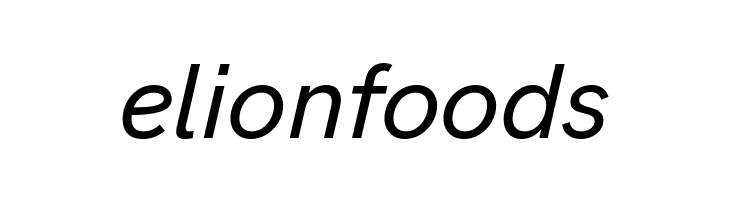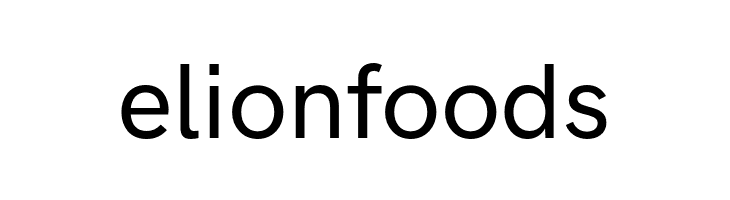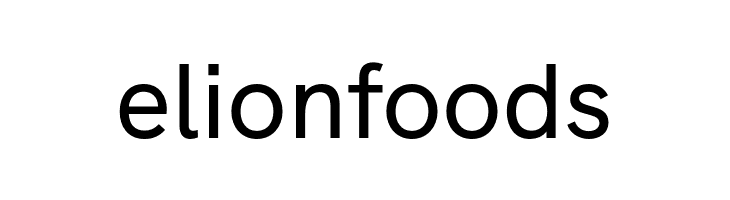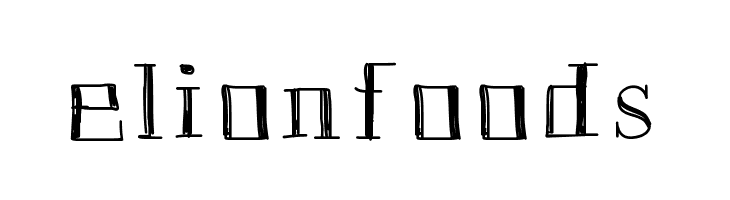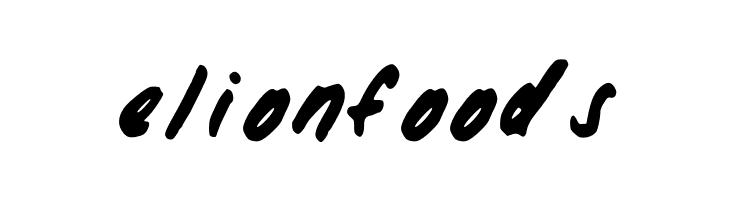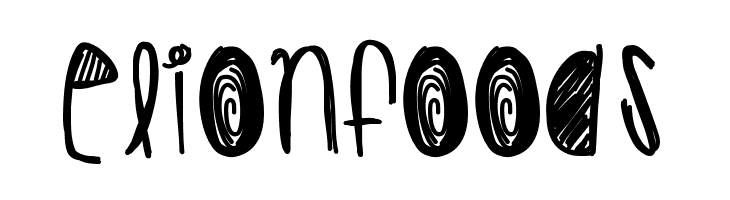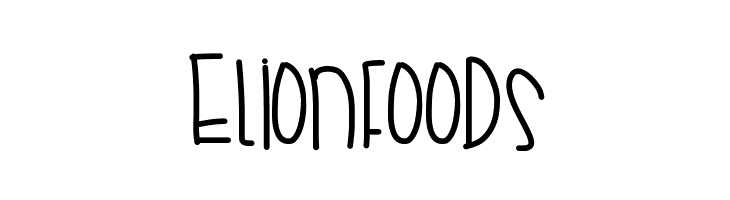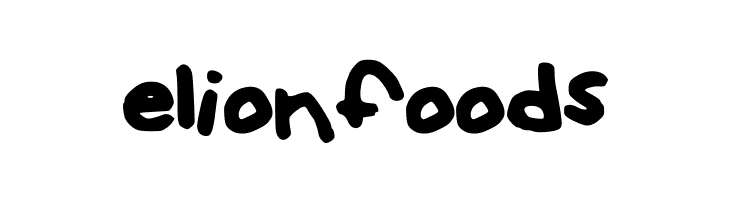
A playful, hand-drawn font with bold, rounded strokes and a casual vibe.
A playful, whimsical handwritten font with tall, narrow letterforms and smooth, rounded strokes.
A playful, hand-drawn font with whimsical and quirky characters.
A vintage-inspired font with a handcrafted, whimsical style.
A hand-drawn, vintage-style font with sketch-like, decorative elements.
A modern, clean typeface with balanced proportions and consistent stroke width.
A modern, sans-serif typeface with clean lines and balanced proportions.
A modern, italic sans-serif font with medium weight and balanced proportions.